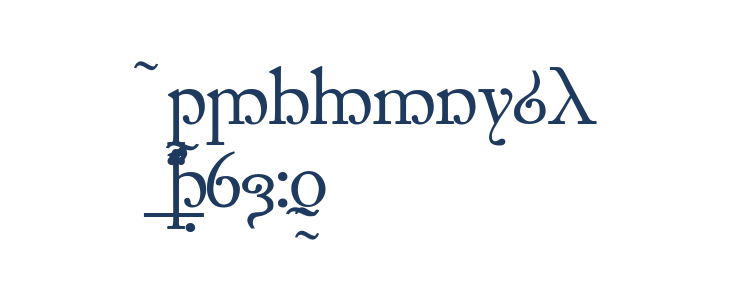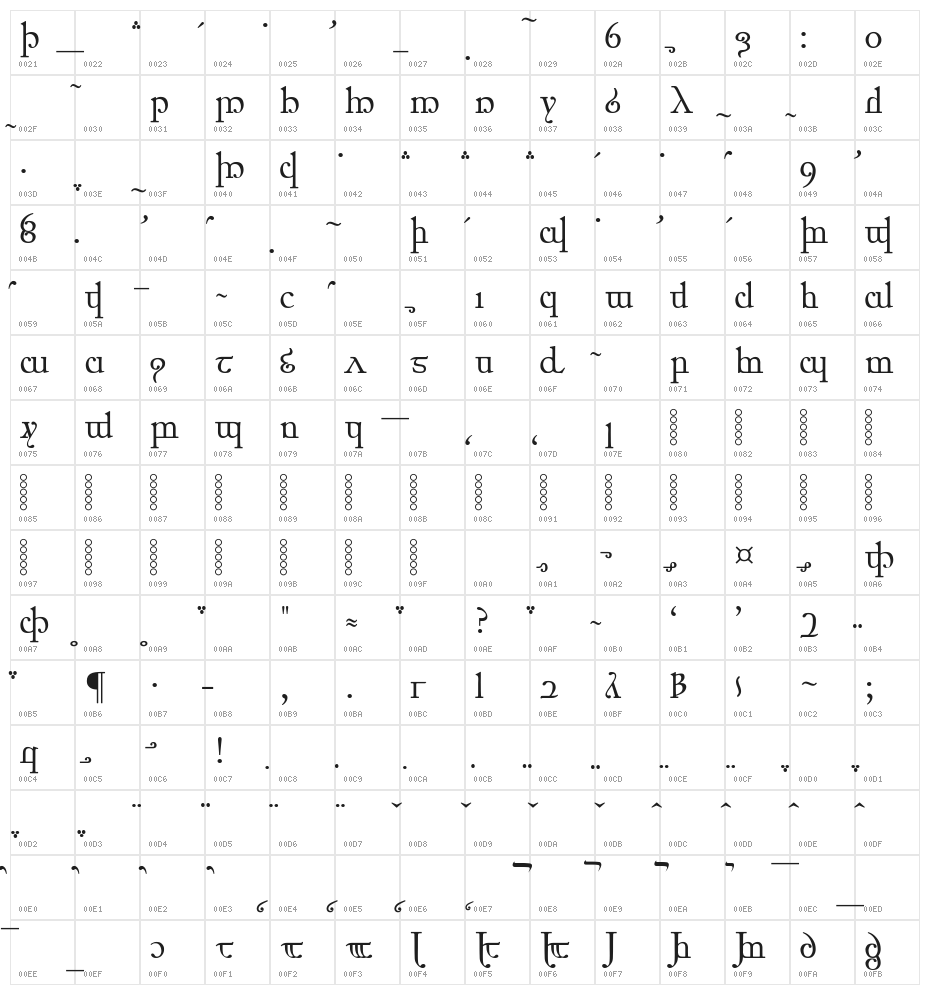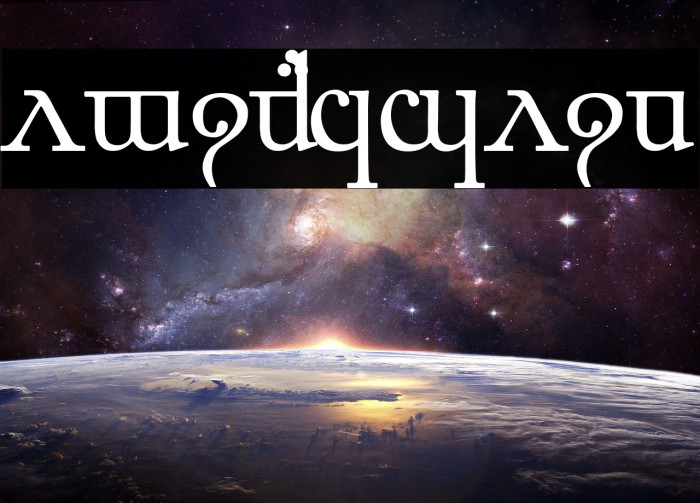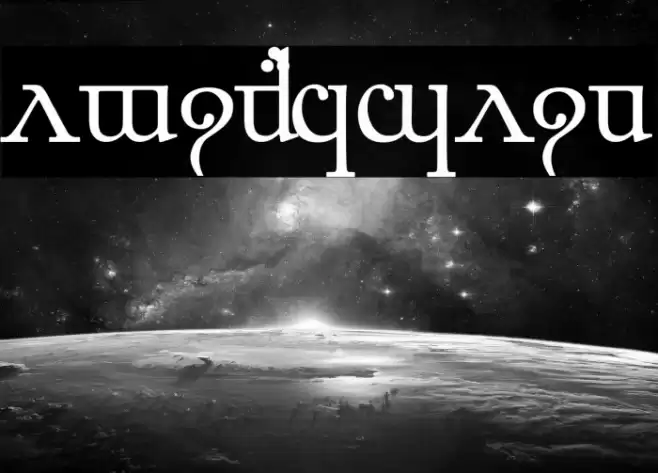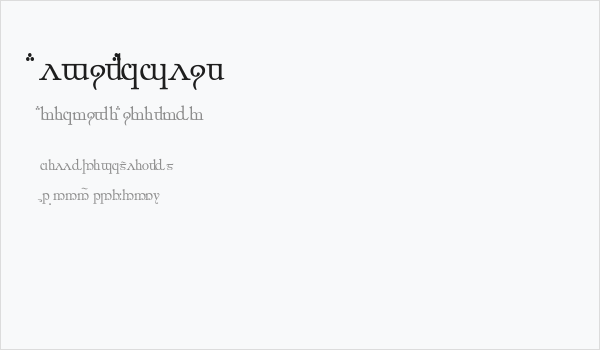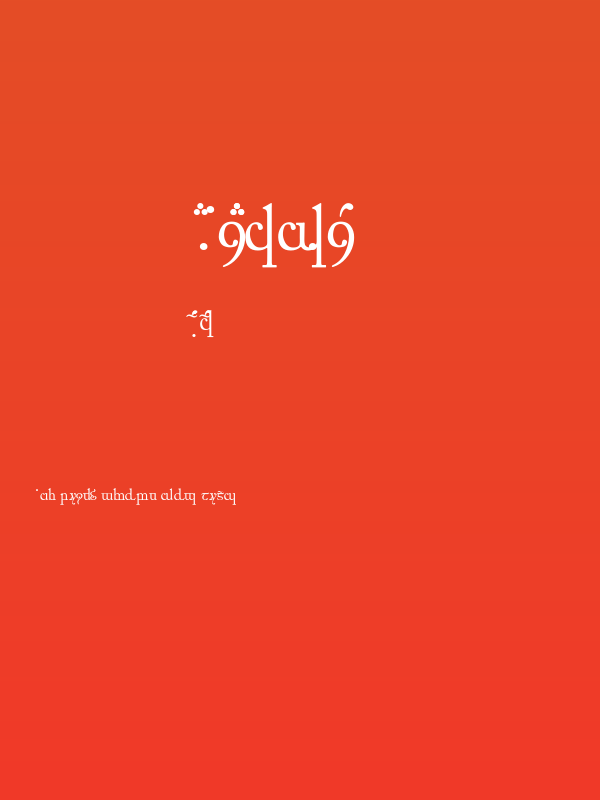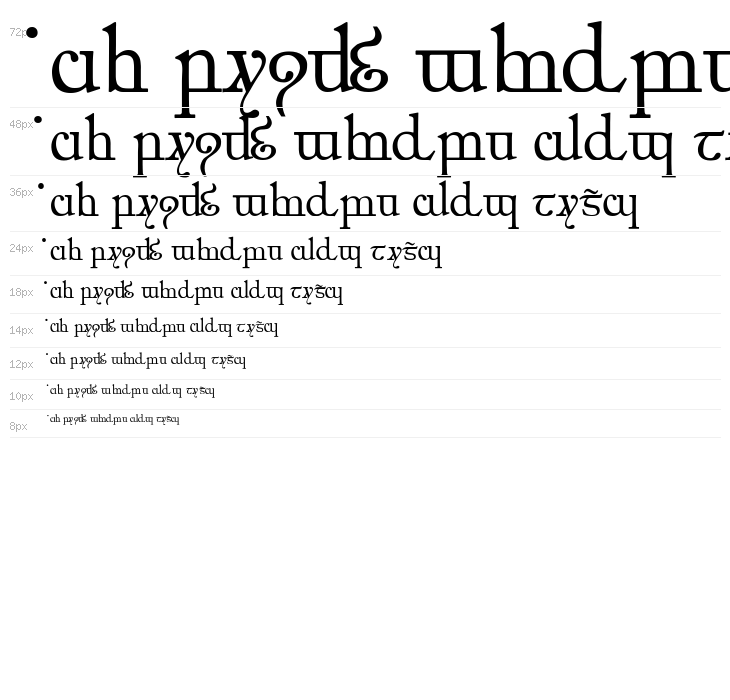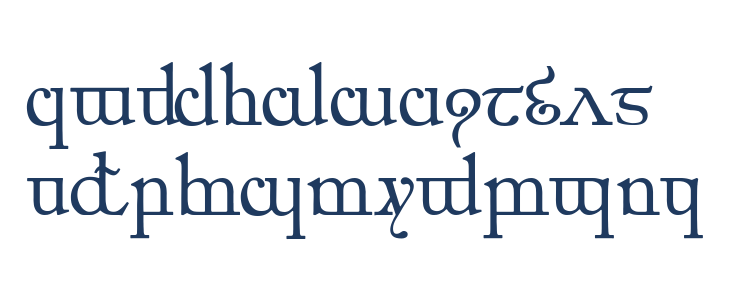
ElbicCaslin Font
ElbicCaslin Description
This font features an intricate and decorative style, reminiscent of ancient scripts with a modern twist. The characters are adorned with unique flourishes and curves, giving them an artistic and almost mystical appearance. The uppercase letters are bold and commanding, while the lowercase letters maintain a consistent style with slightly less embellishment. The numbers and special characters follow the same ornate design, making the font suitable for creative and thematic projects. The overall design is cohesive, with a strong emphasis on decorative elements that enhance its visual appeal.
| Use Case | Logos, Headlines, Artistic designs |
| Proposed Projects | Ideal for fantasy-themed projects, book covers, posters, and artistic designs that require a touch of elegance and mystery. |